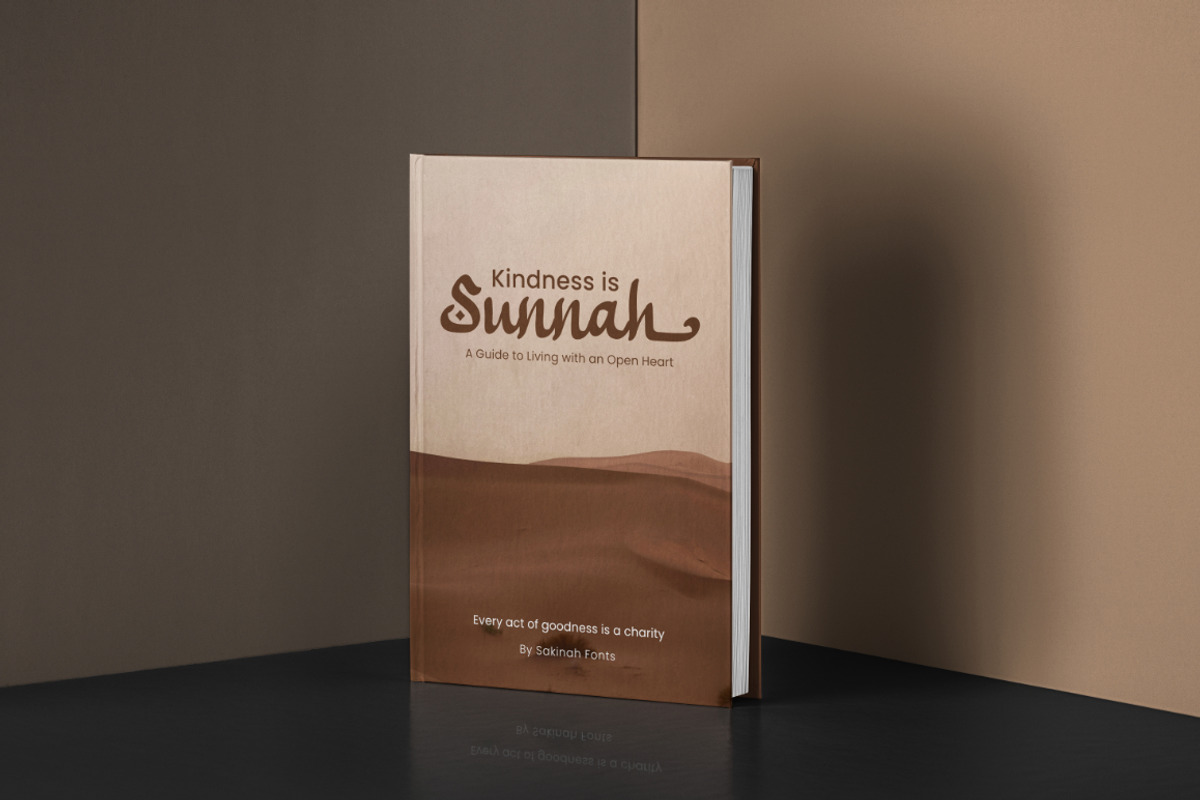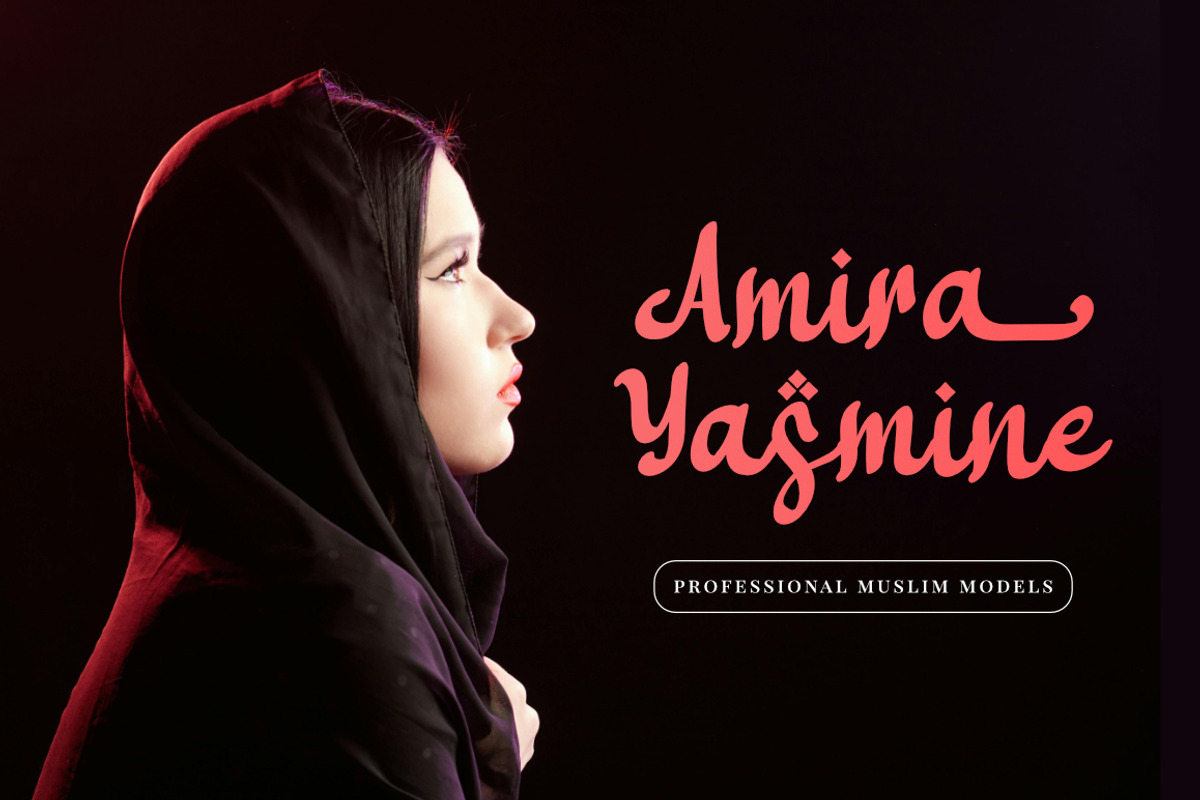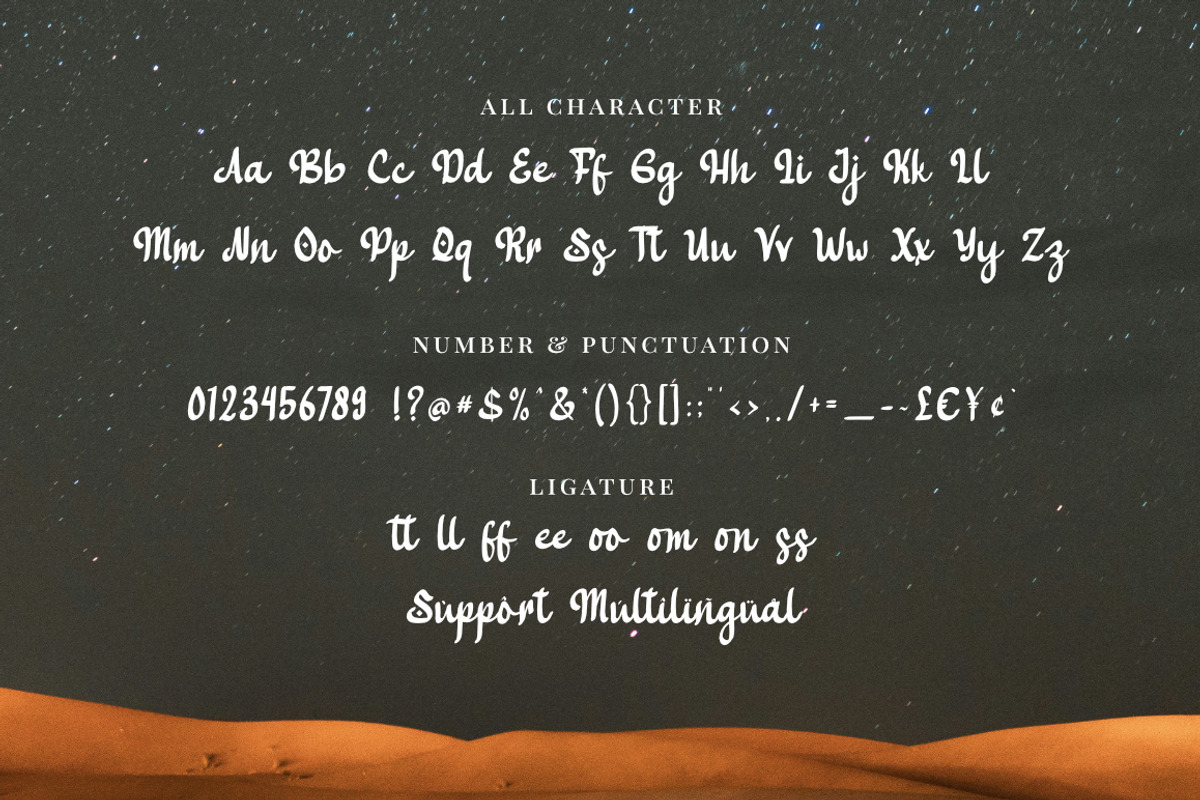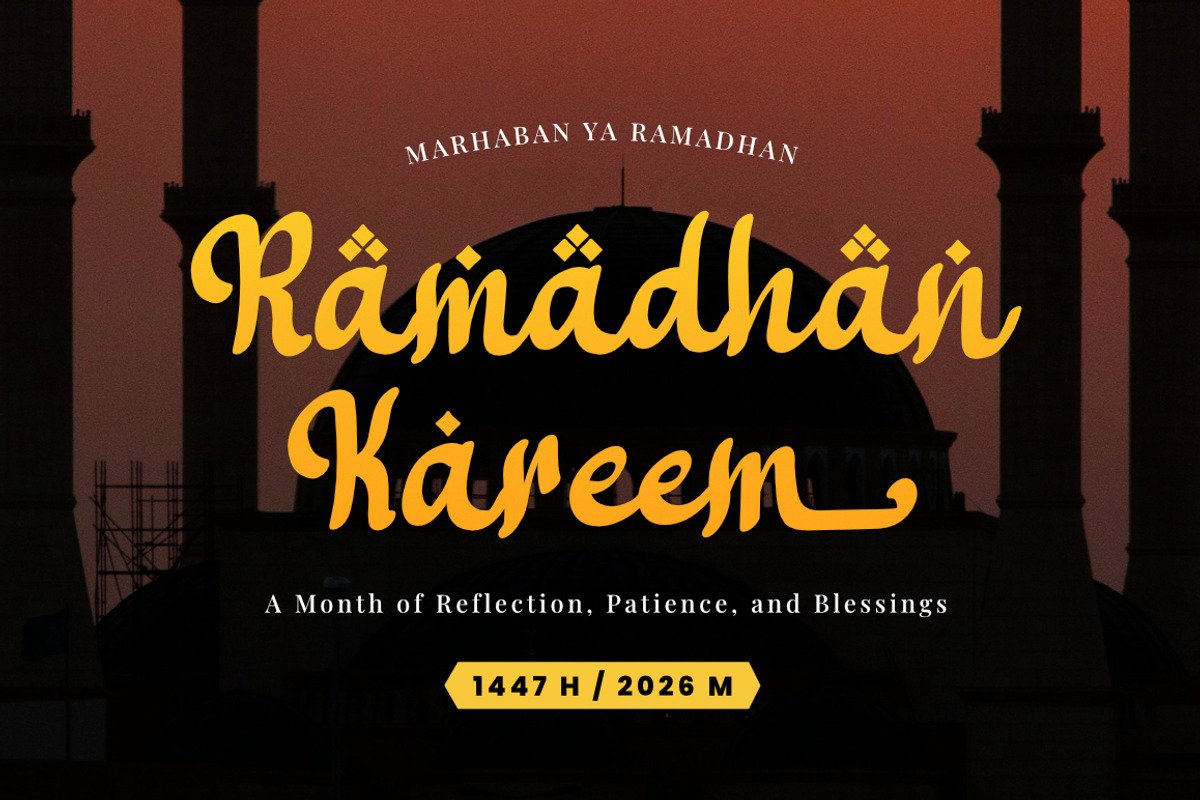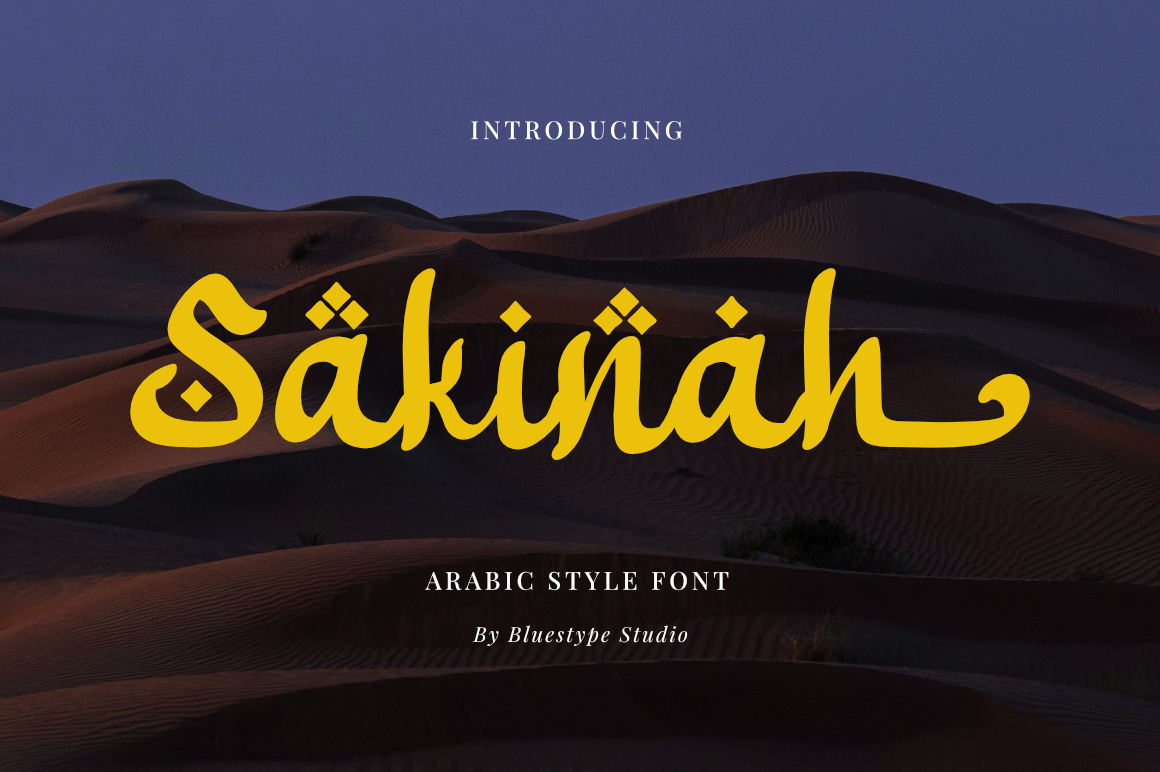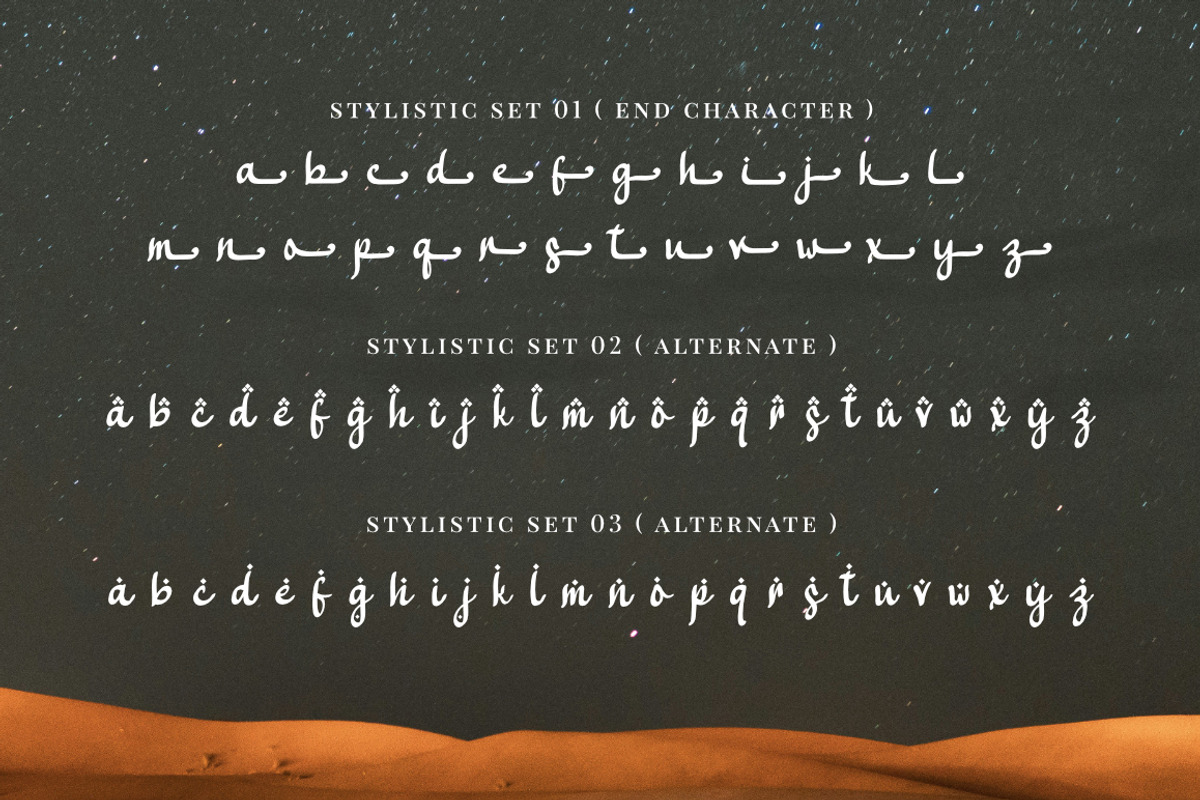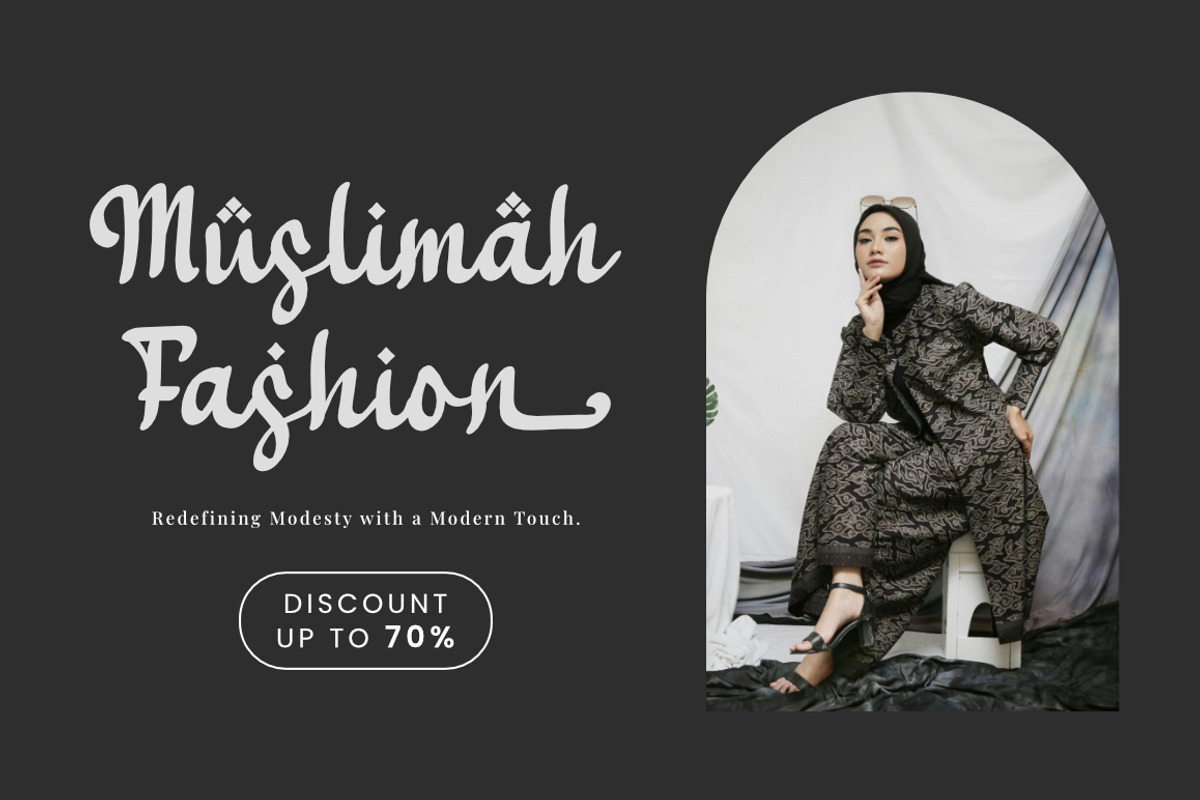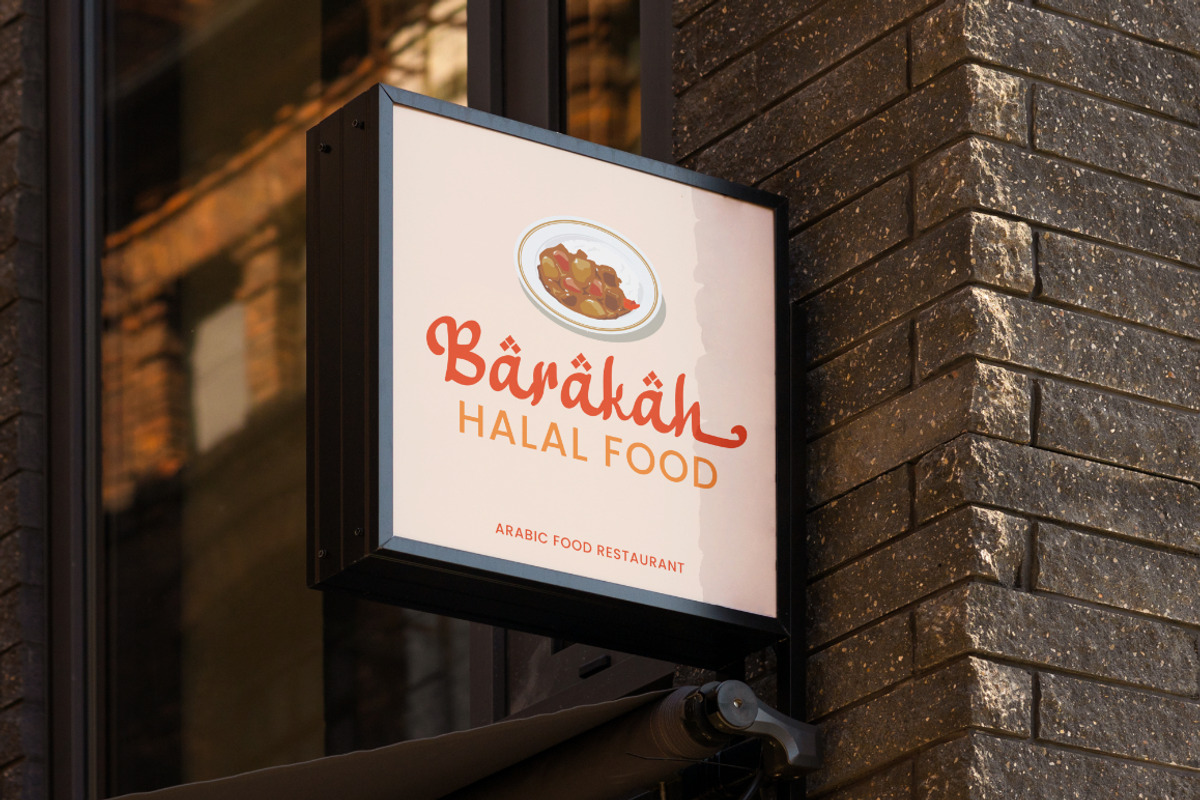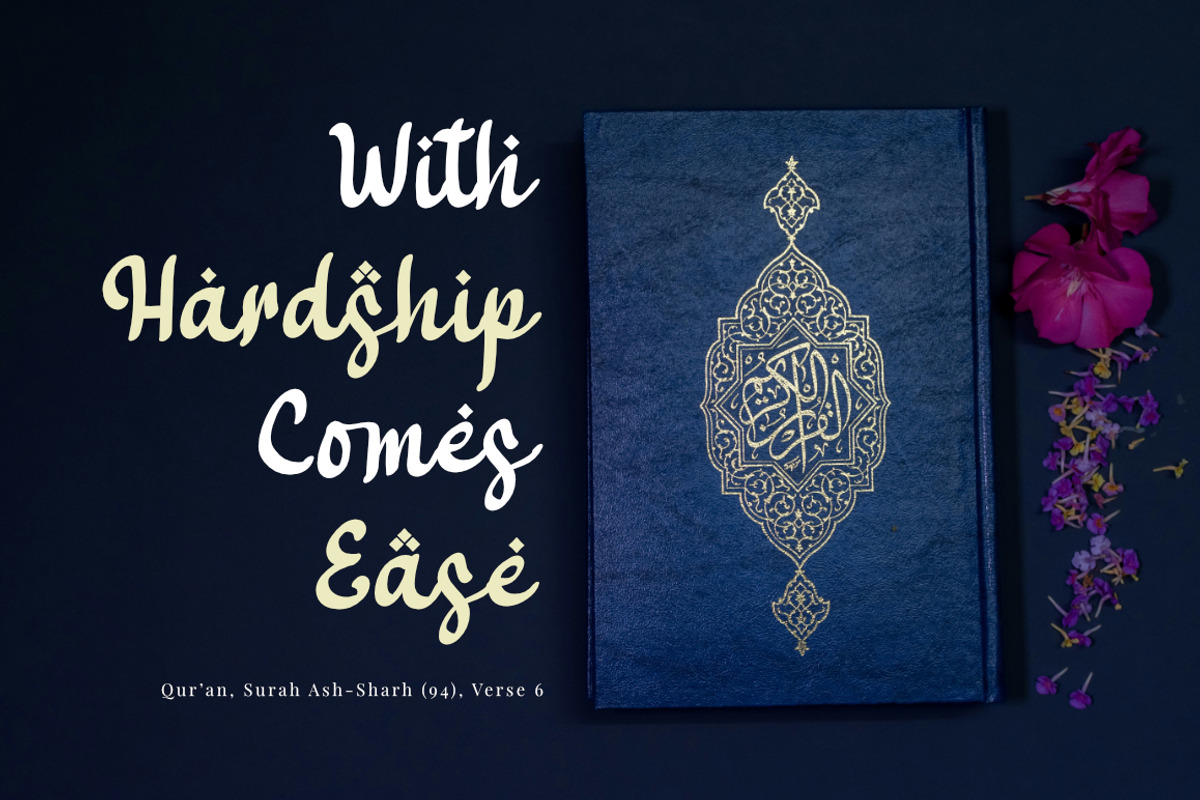
Sakinah - Arabic Font
Sakinah – Arabic-Style Font
Elevate your creative projects with Sakinah, a premium Arabic-style script font that perfectly blends traditional Eastern aesthetics with modern typography. The word Sakinah (transquility) reflects the soul of this typeface—smooth, flowing, and deeply calming.
Crafted with delicate strokes and authentic calligraphic flair, Sakinah is the ideal choice for modest social media, logo font, fashion branding, Islamic book covers, Halal food packaging, and Islamic branding. This font features a wide array of stylistic alternates and ligatures, allowing you to create custom-looking hand-lettering with just a few clicks.
- Stlistic Set
- Alternate Character
- Support Multilingual